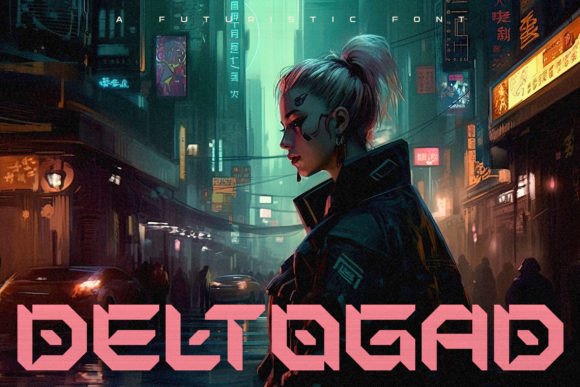
Journey into the realm of innovation and creativity with Deltogad, the groundbreaking display font family pushing the boundaries of design. Inspired by the sleek lines and geometric precision of technology, Deltogad is not just a font; it's a gateway to the future. With its sharp angles and dynamic curves, this font family embodies the essence of progress and innovation. Whether you're a tech startup seeking to leave an indelible mark or a visionary designer seeking to break free from the norm, Deltogad is your key to unlocking a world of possibilities.
Step into the spotlight and let your designs radiate brilliance with Deltogad. This captivating font family adds an instant touch of modernity and sophistication to your logos, posters, and websites. Its sleek design demands attention, ensuring your message cuts through the noise and leaves a lasting impression. With Deltogad, you'll create designs that resonate with the zeitgeist, captivating audiences with their forward-thinking aesthetic.
Elevate your designs to new heights with Deltogad's versatility. As a display font family, Deltogad effortlessly adapts to a multitude of creative projects. From captivating headlines that ignite curiosity to informative brochures that exude professionalism, Deltogad seamlessly molds to your vision. Whether you're crafting bold social media campaigns or sleek presentations, this font family will elevate your message, ensuring it shines brighter than ever before.
Deltogad is more than just a font; it's a statement of intent. A testament to your dedication to pushing creative boundaries and embracing the future. With every design crafted using Deltogad, you'll leave an indelible mark on the world. Join the ranks of visionaries and innovators who harness the power of this remarkable font family. Embrace the allure of Deltogad and unlock a realm of endless creative possibilities.